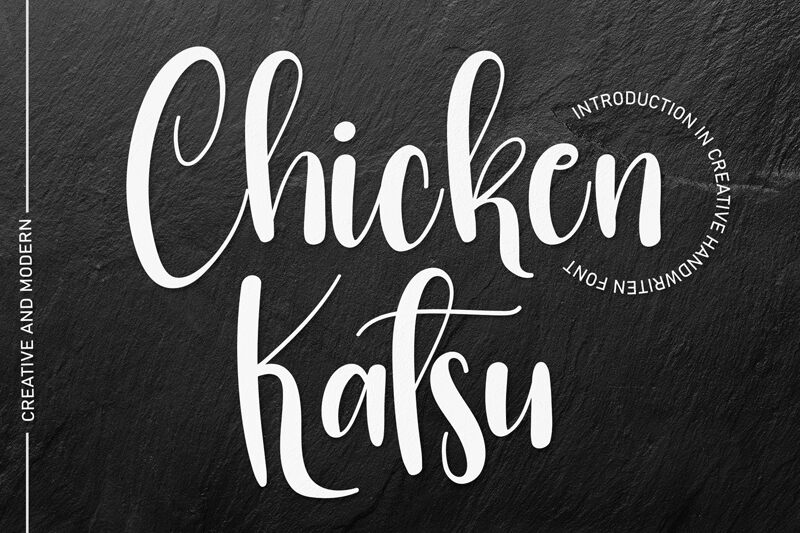
Chicken Katsu
Chicken Katsu is a stunning calligraphy font, designed by scratchones. With its semi-light weight and semi-condensed width, it's perfect for creating elegant designs with an Asian touch. This font is ideal for menus, restaurant logos, food packaging, and any other projects that require a refined yet playful look. Its unique style will elevate any design project and make it stand out from the crowd. Whether you're designing for a sushi bar or an Asian fusion restaurant or even creating wedding invitations or social media graphics, Chicken Katsu is sure to impress!
the latest style letters are perfect for wall displays, wedding invitations, social media post logos, advertisements, product packaging, product designs, labels, photography, watermarks, invitations, stationery, and any project that requires taste handwriting.